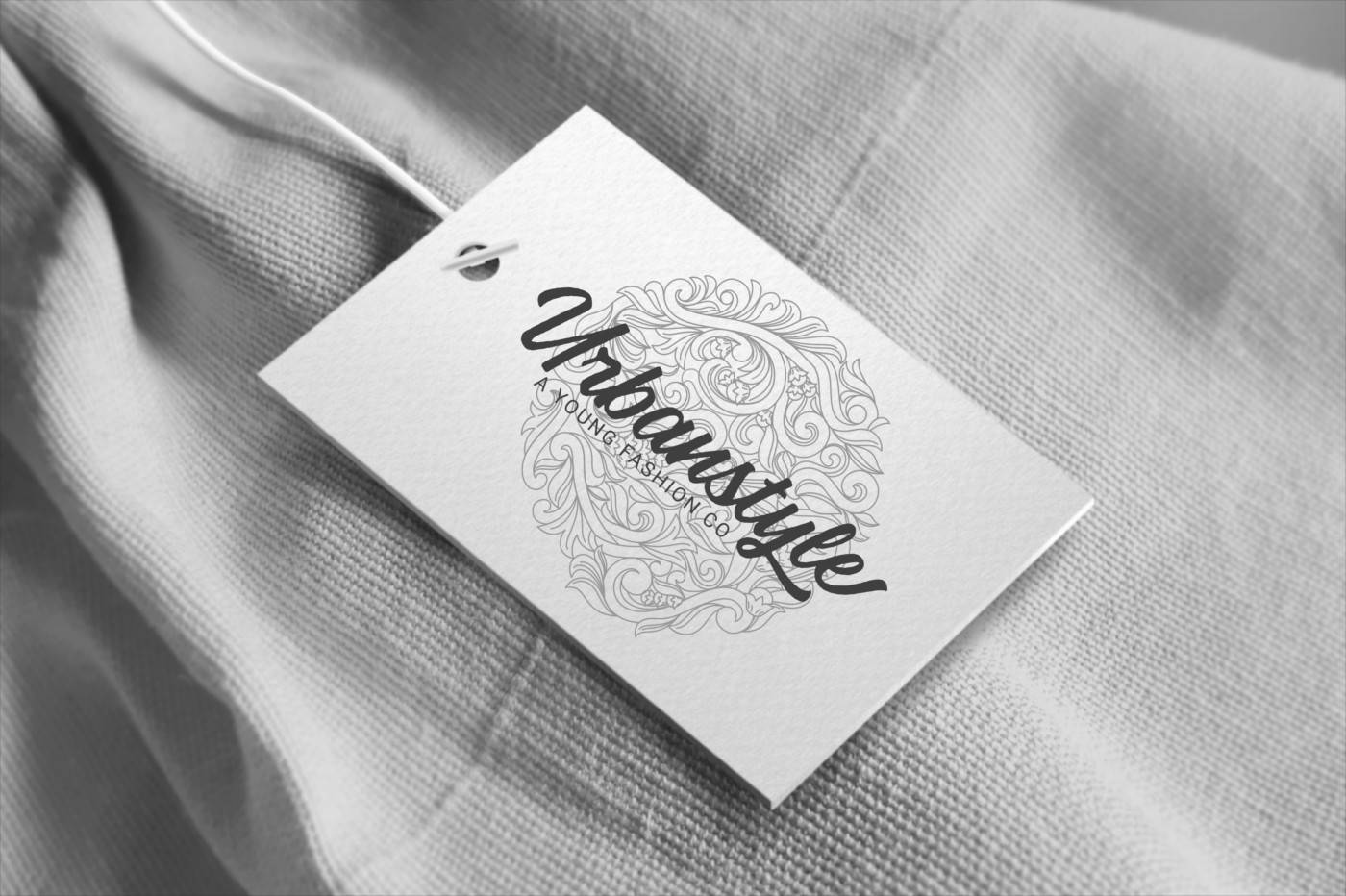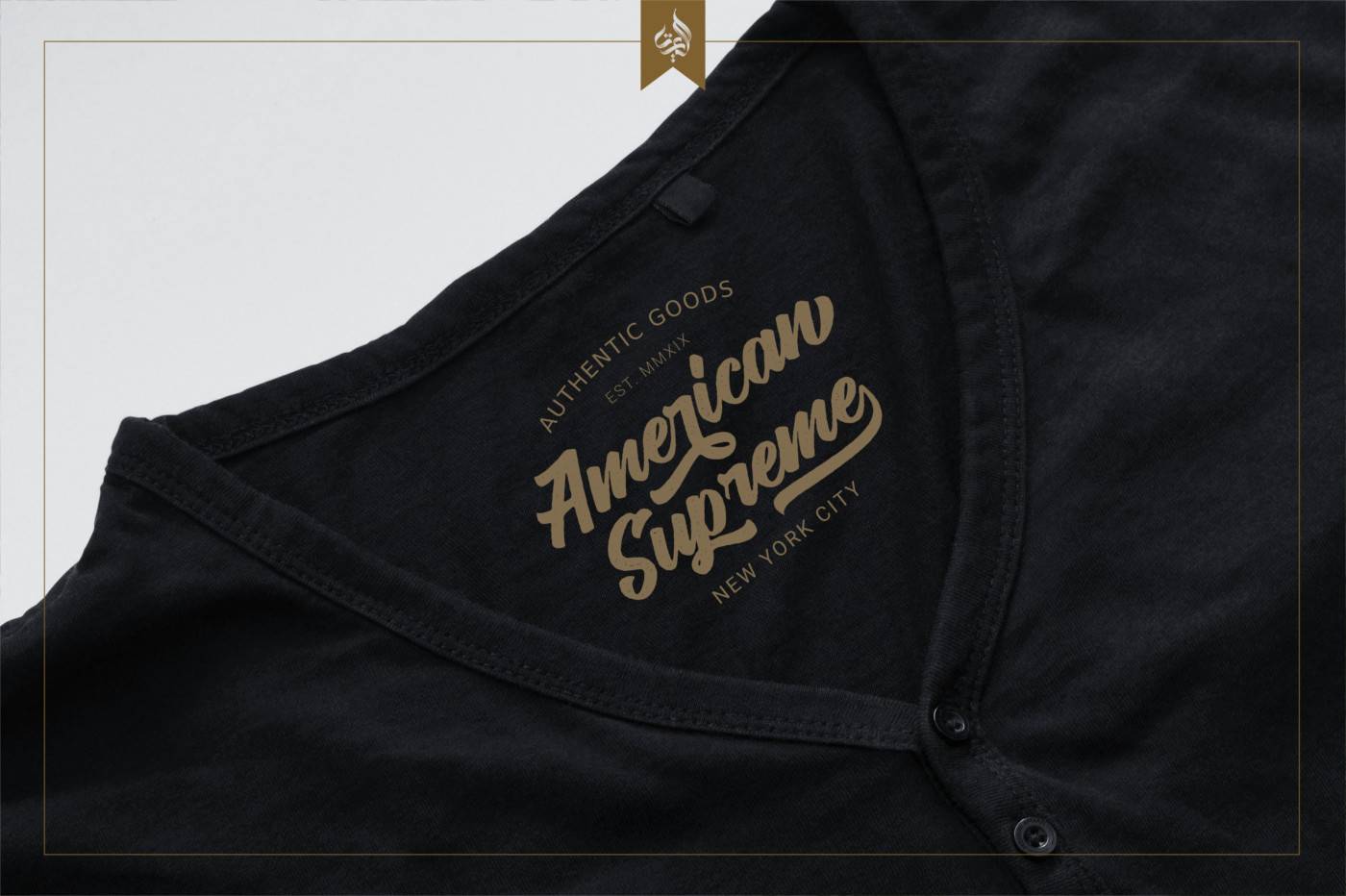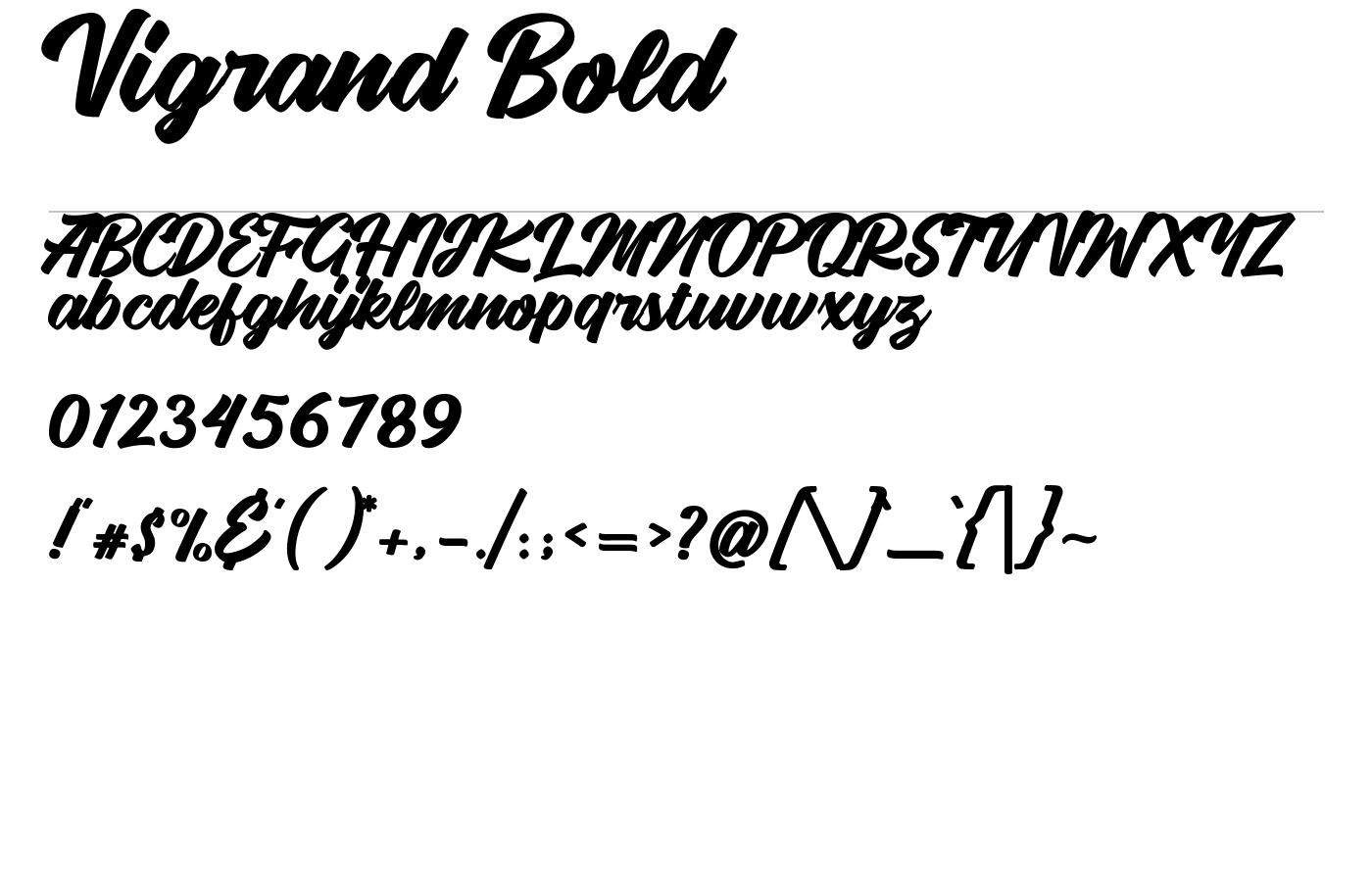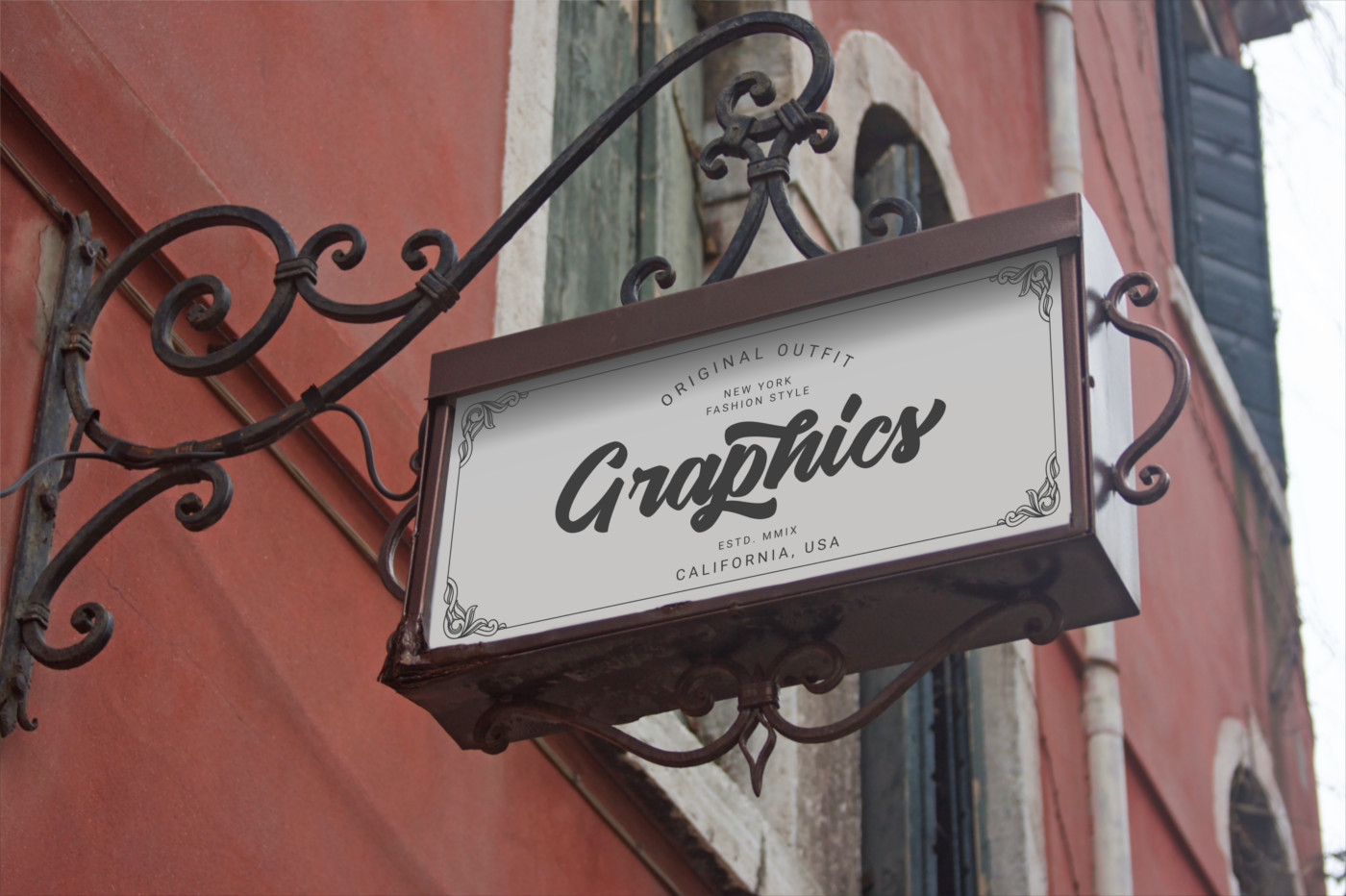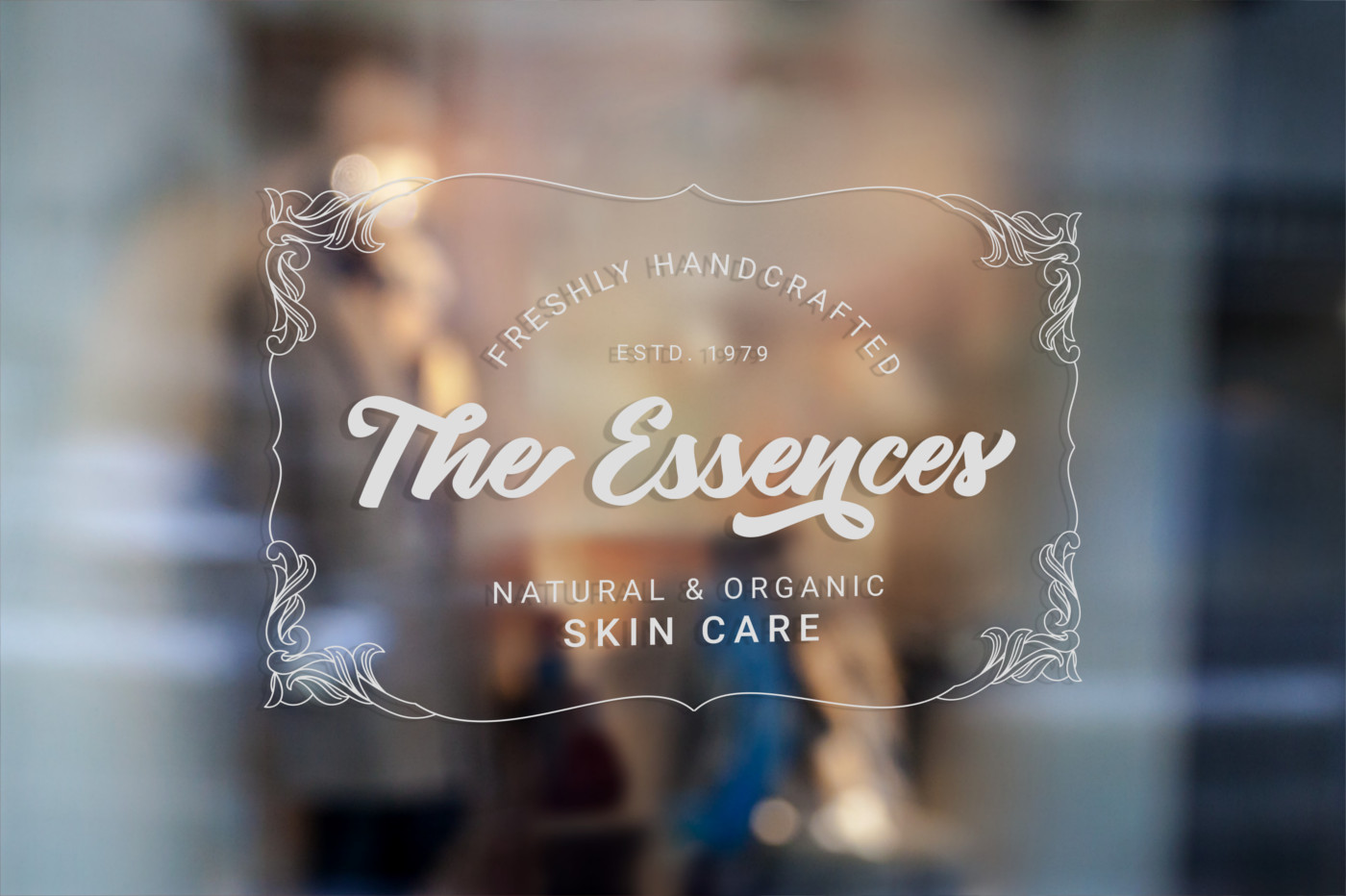
Vigrand Bold is a vibrant script font with a bold weight and smooth, flowing strokes that evoke a sense of elegance and energy. Its dynamic, slightly condensed letterforms with consistent contrast and a casual, handwritten feel make it perfect for branding, logos, and eye-catching headlines where personality and style are key. This font works well in fashion, packaging, and creative editorial contexts, adding a touch of sophistication with a playful twist.
Vigrand
About Vigrand